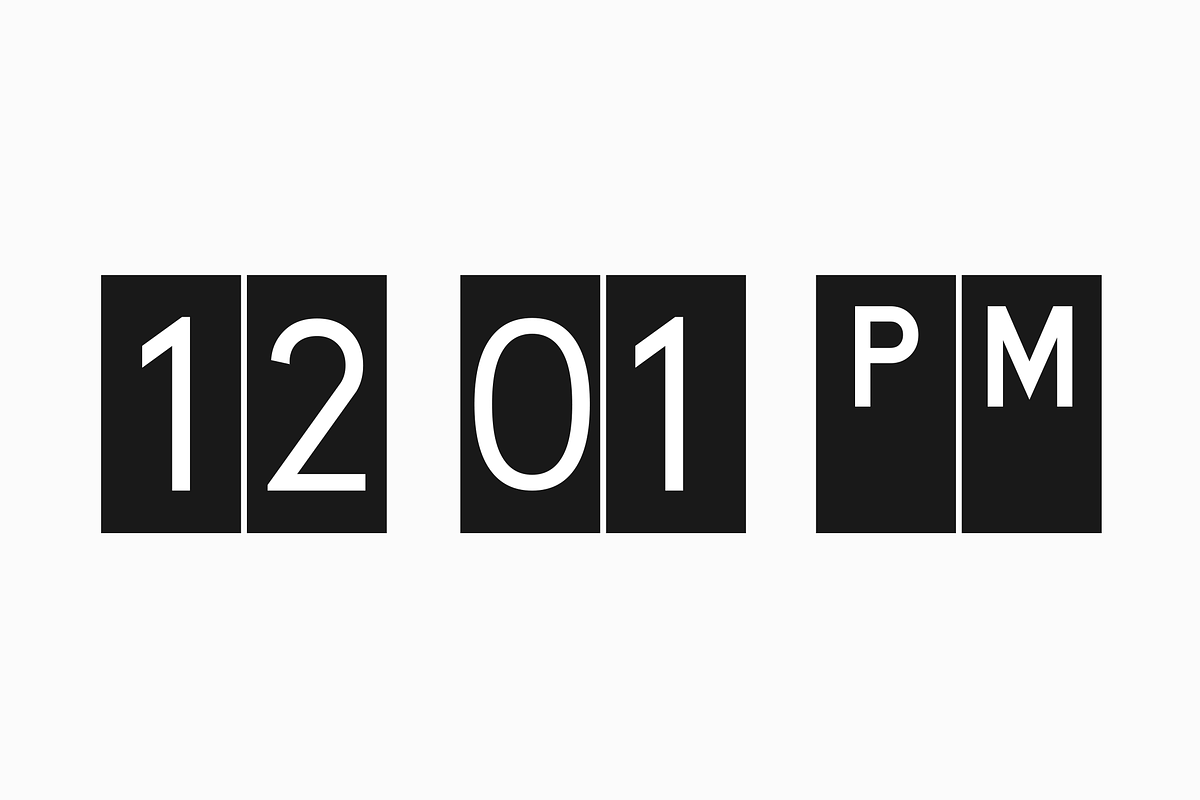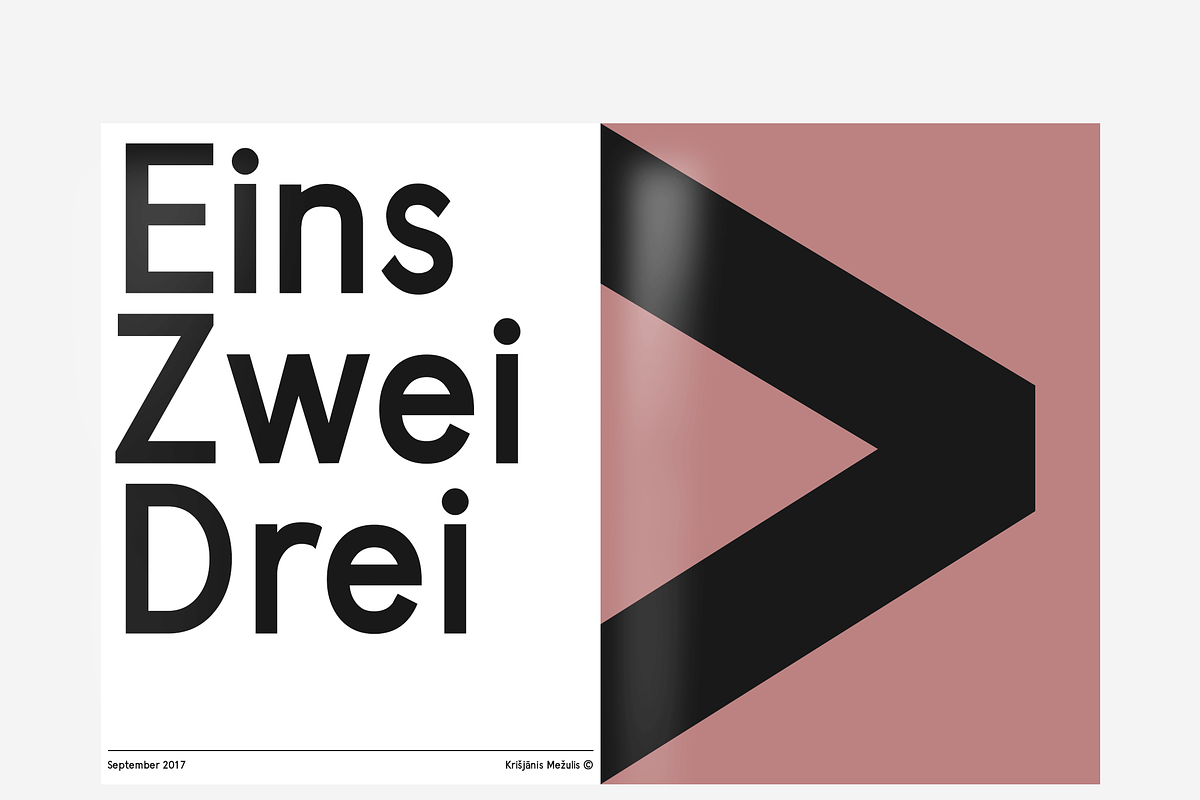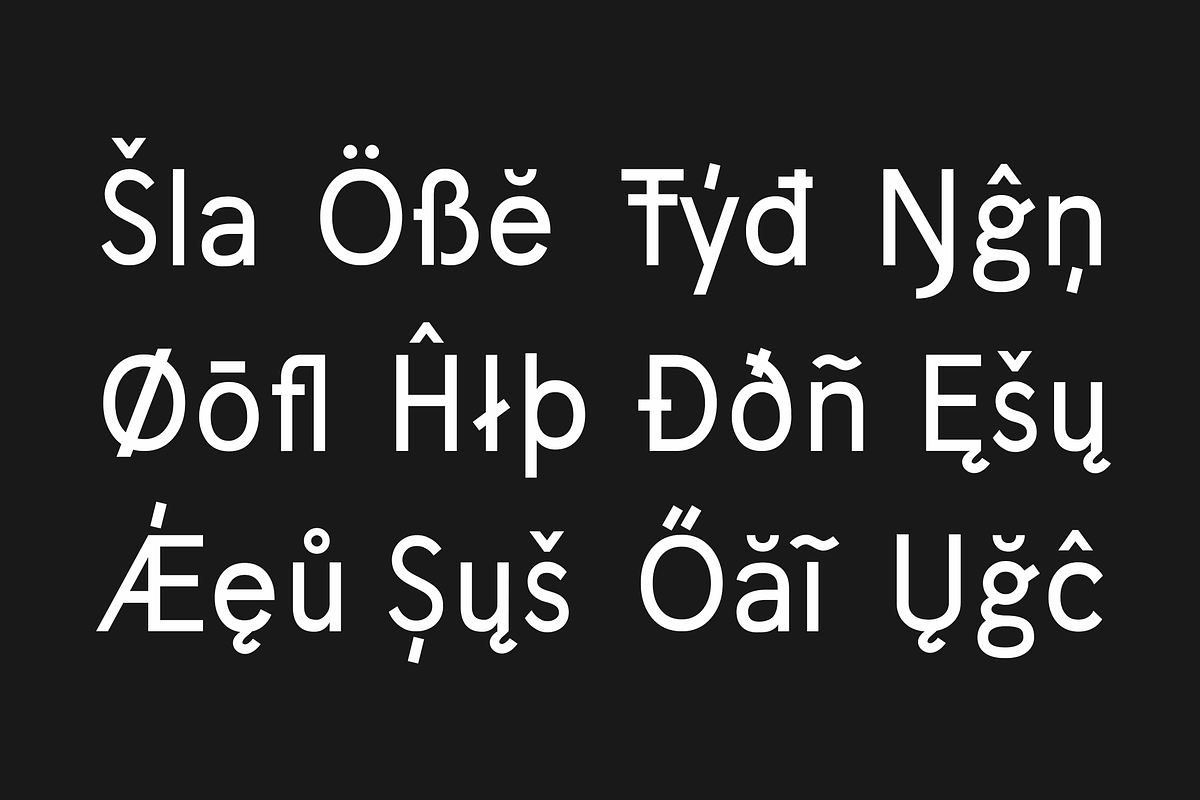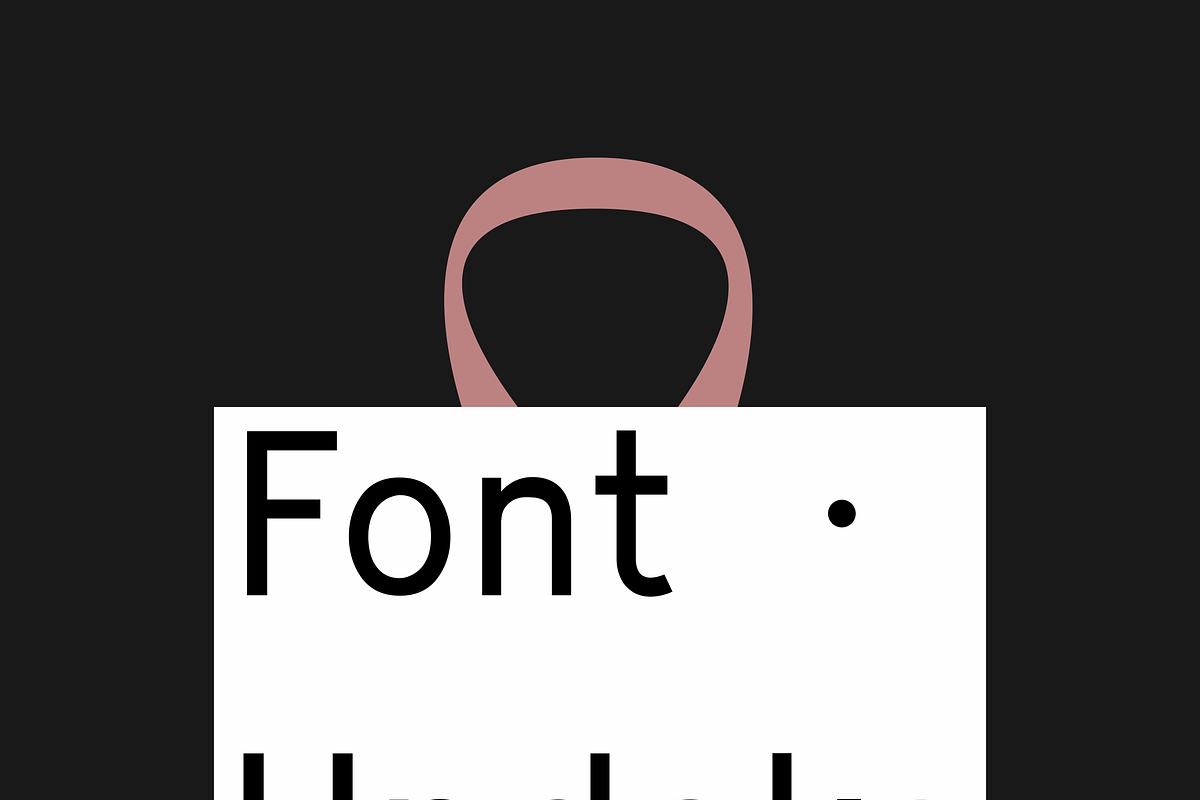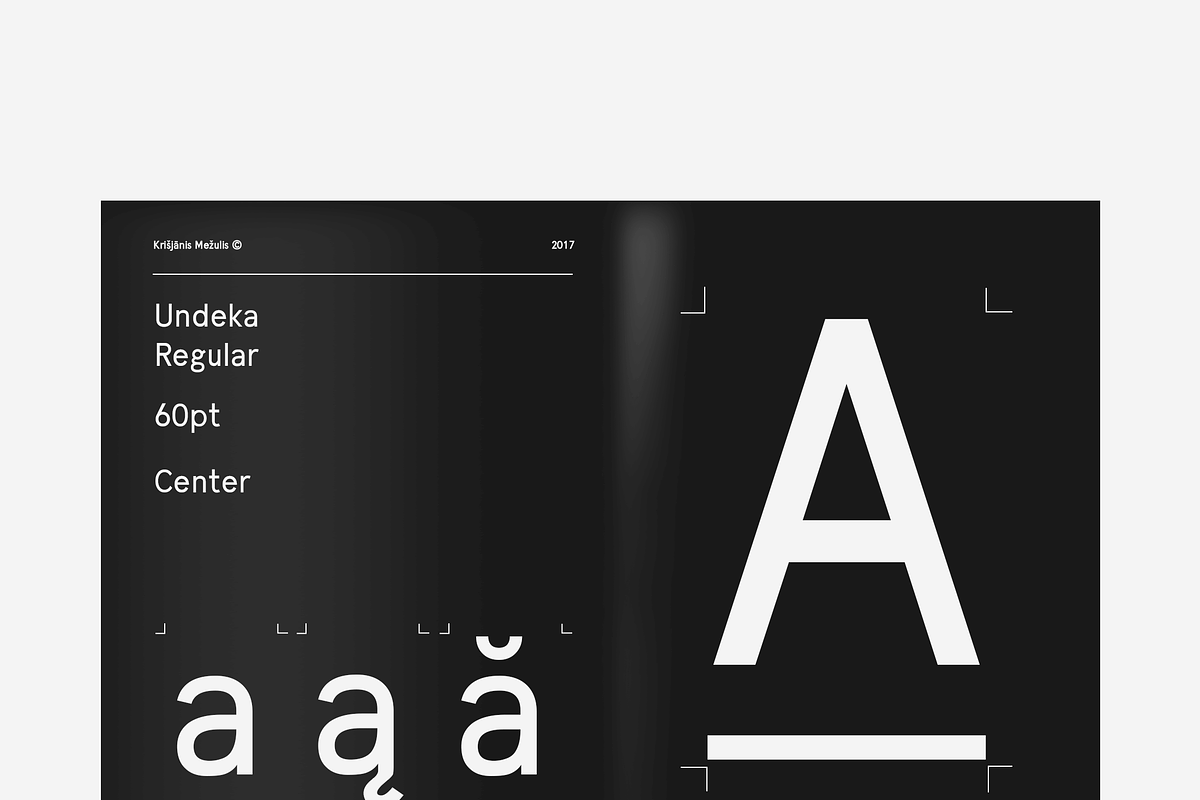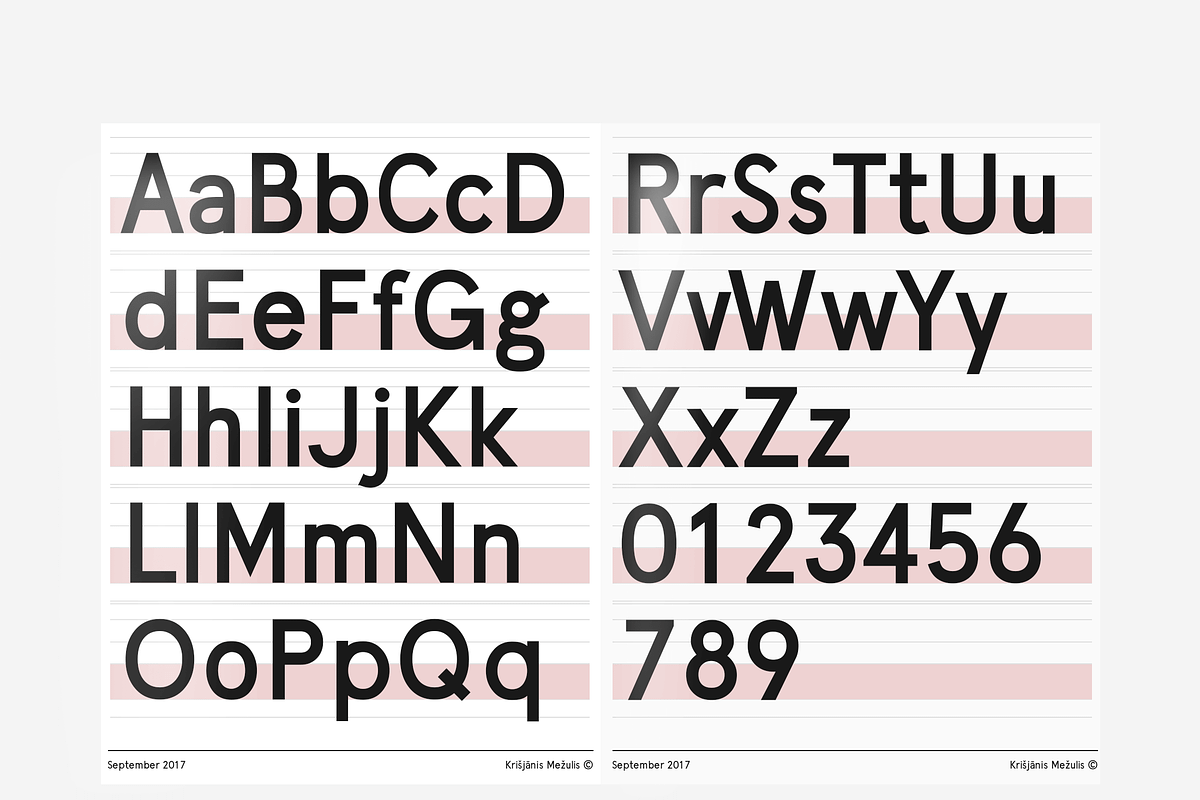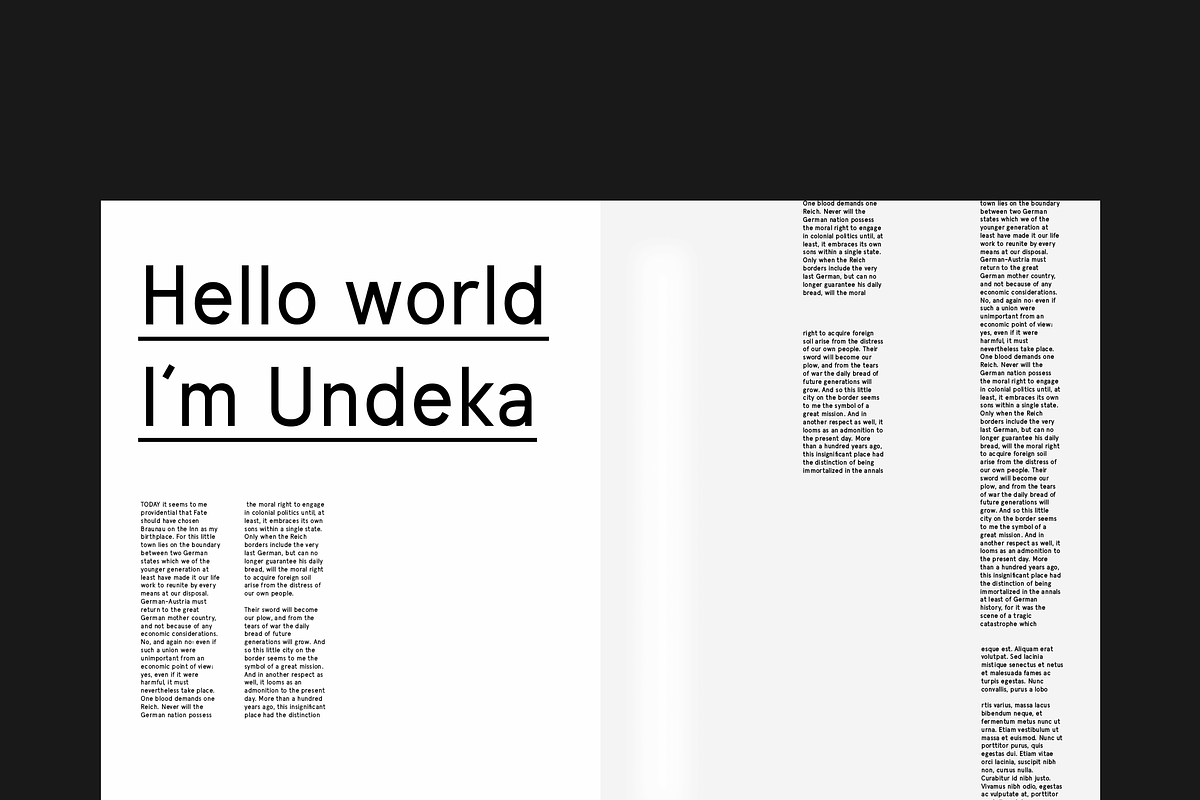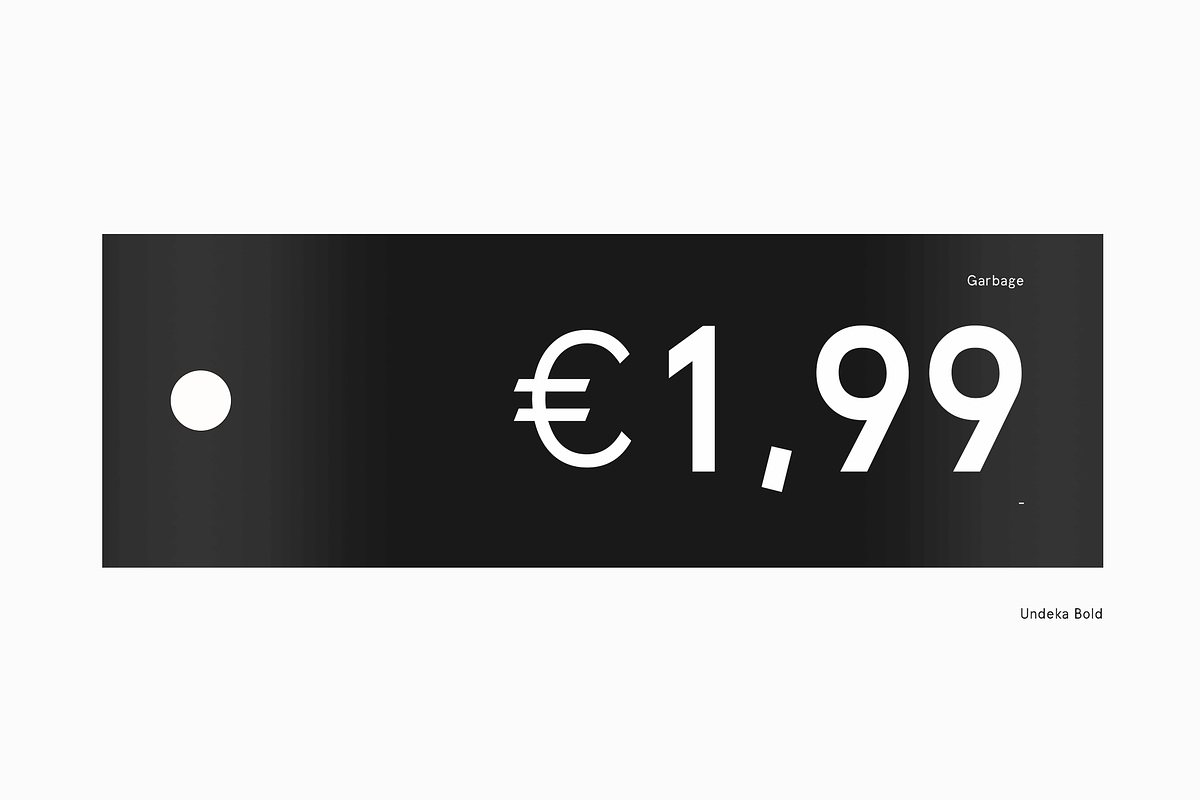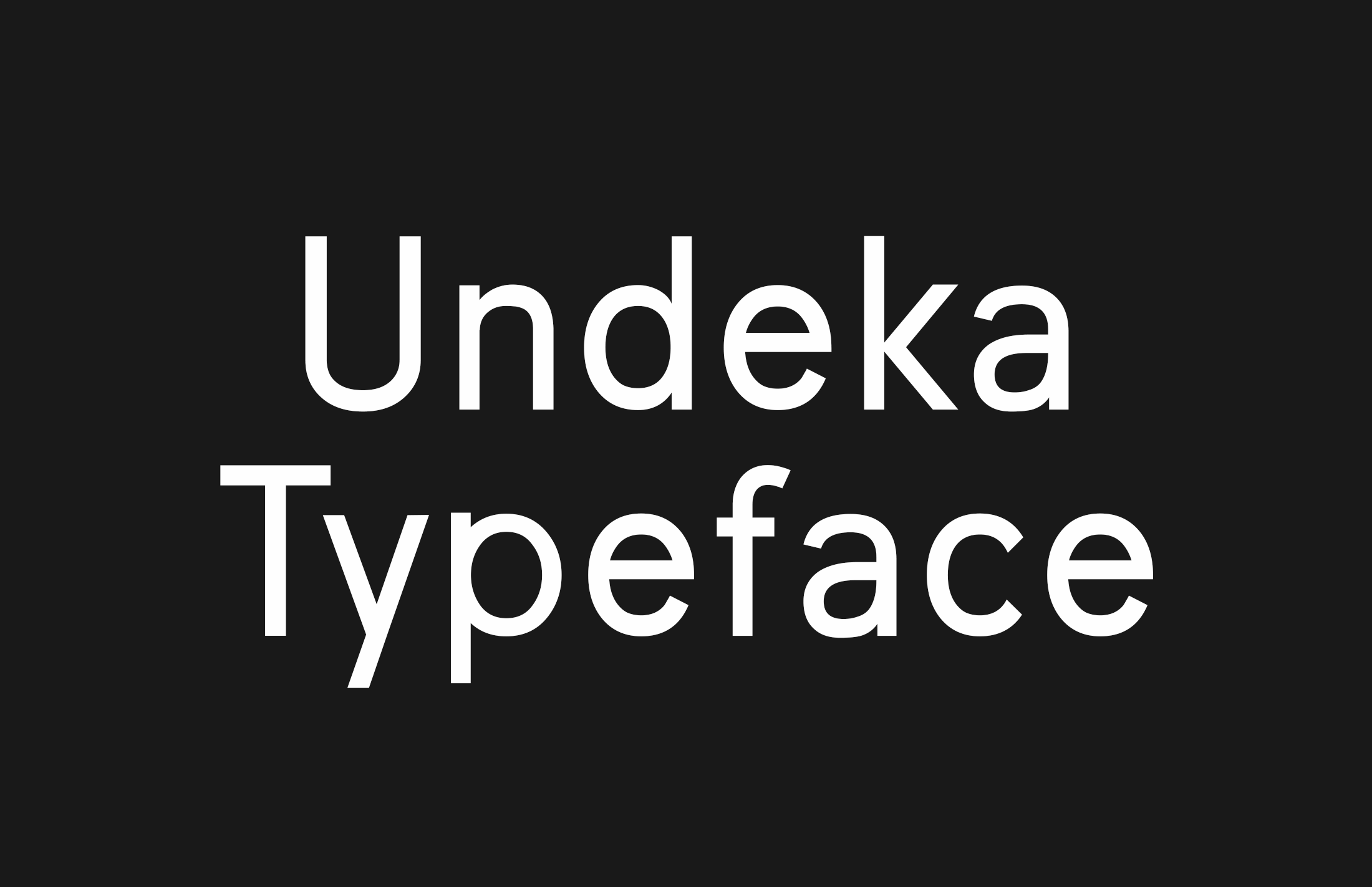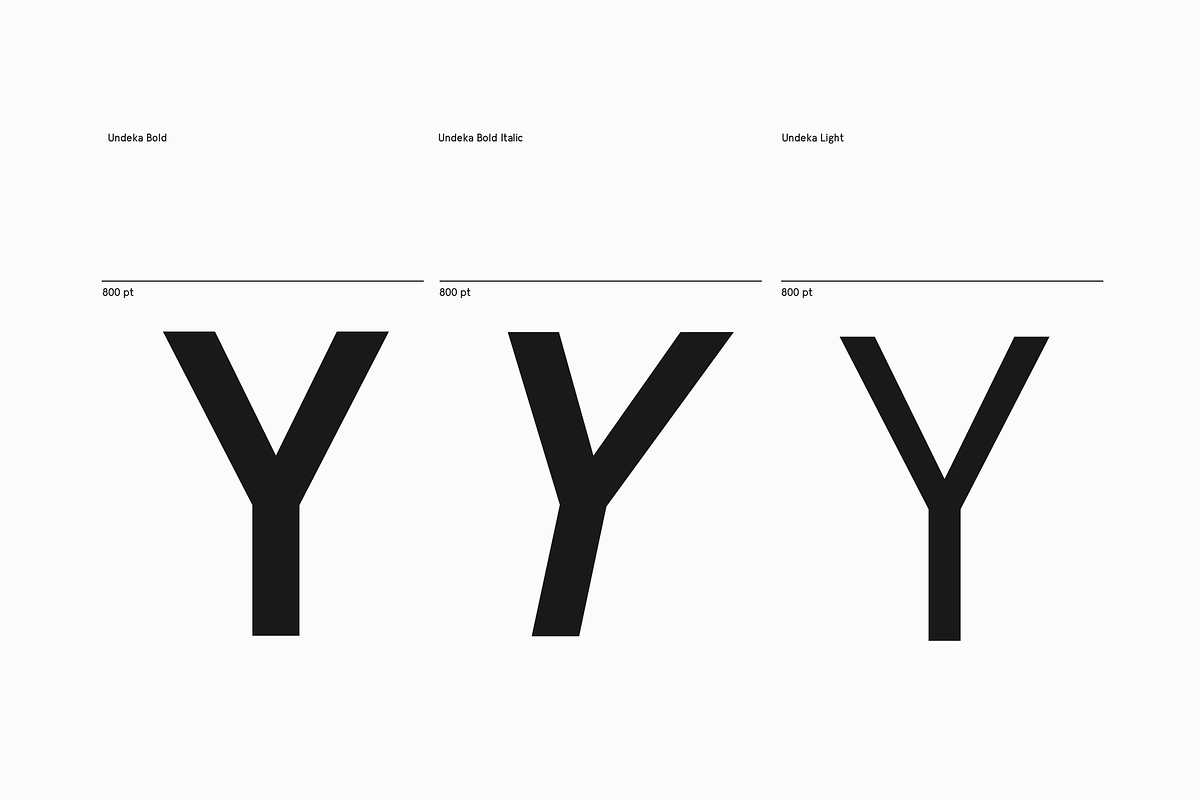
Undeka San Serif Font
Undeka™ is a modern contemporary sans serif typeface that embodies simple geometric shapes combined with strong typographical foundations. Inspired be the grotesk typefaces made in the early 20th century. It was made by Krisjanis Mezulis at the WildType Foundry. Undeka is available in 6 different versions - Regular/Italic, Light/Italic, Bold/Italic.
- 6 Weights
- Extended Latin Support (Spanish, Portuguese, French, German, Italian, Swedish,Dutch, Finnish, +more)
- 420+ Glyphs (Last Screenshot)
- OpenType Features